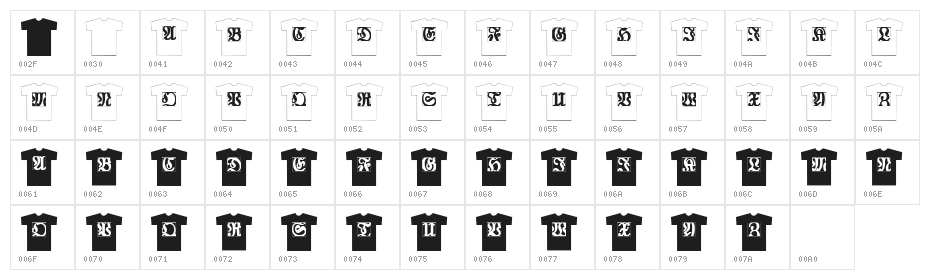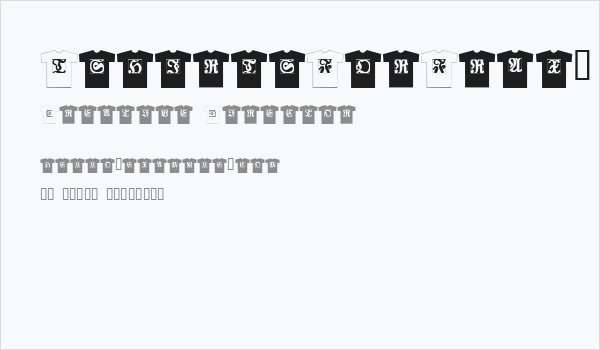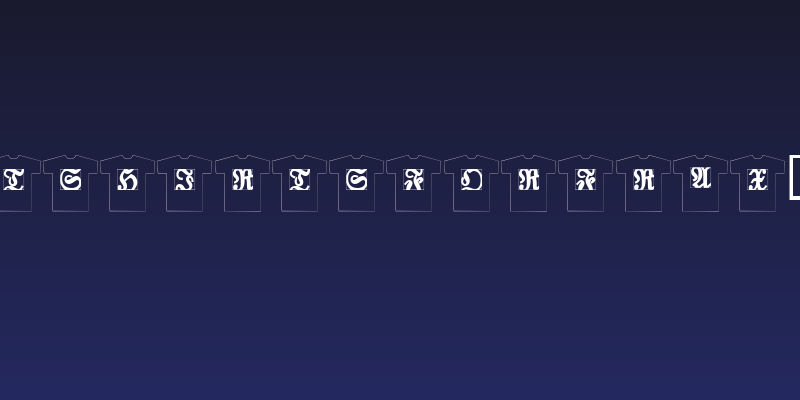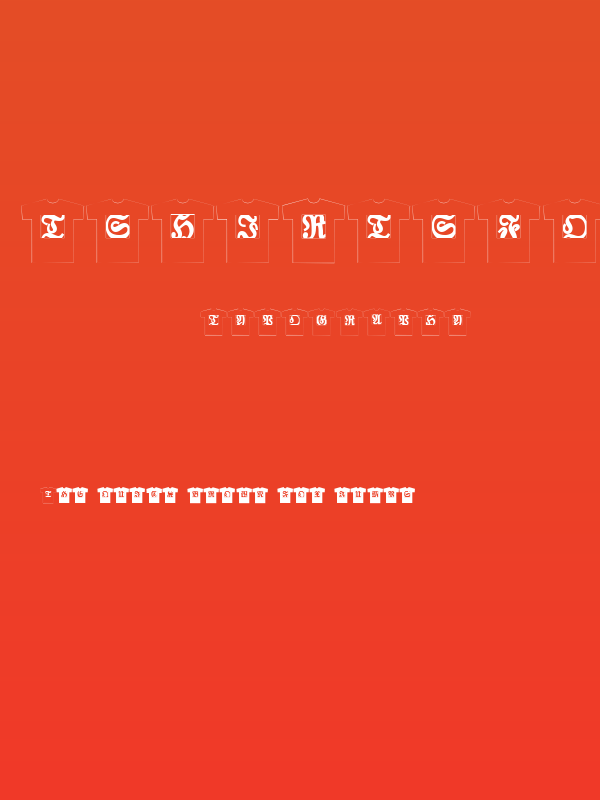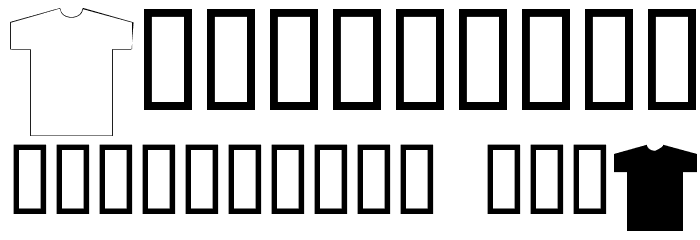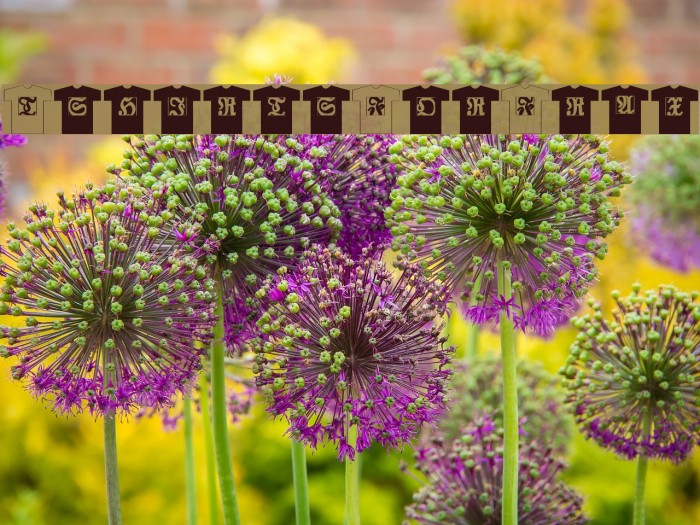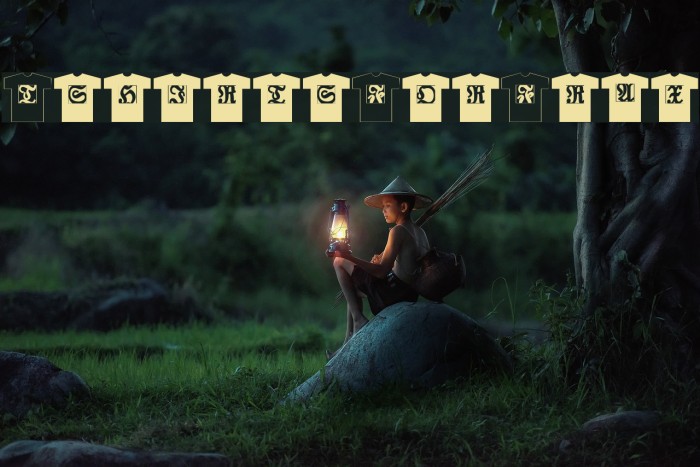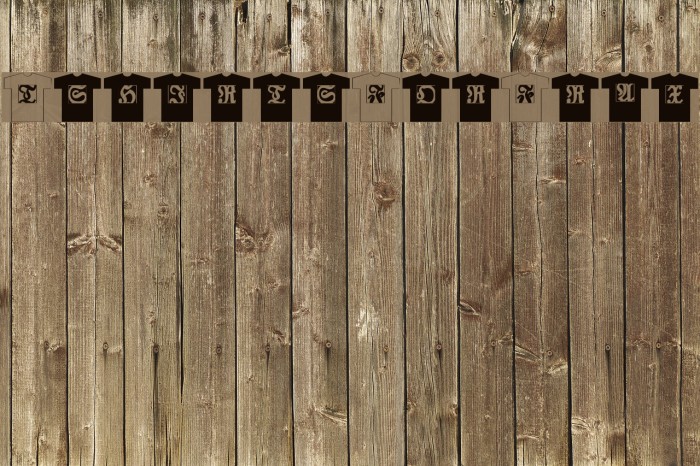
TshirtsForFrax! Font
TshirtsForFrax! Description
This font features a bold and dramatic style, reminiscent of traditional Blackletter typography. The characters are ornate with intricate detailing, giving them a gothic and medieval appearance. Each letter is enclosed within a t-shirt shape, adding a unique and playful twist to the classic design. The font's strong presence and historical flair make it ideal for projects that require a touch of elegance and authority. The uppercase letters are prominently displayed, emphasizing their decorative nature.
| Proposed Projects | Ideal for branding, posters, album covers, and any design needing a gothic or medieval touch. |